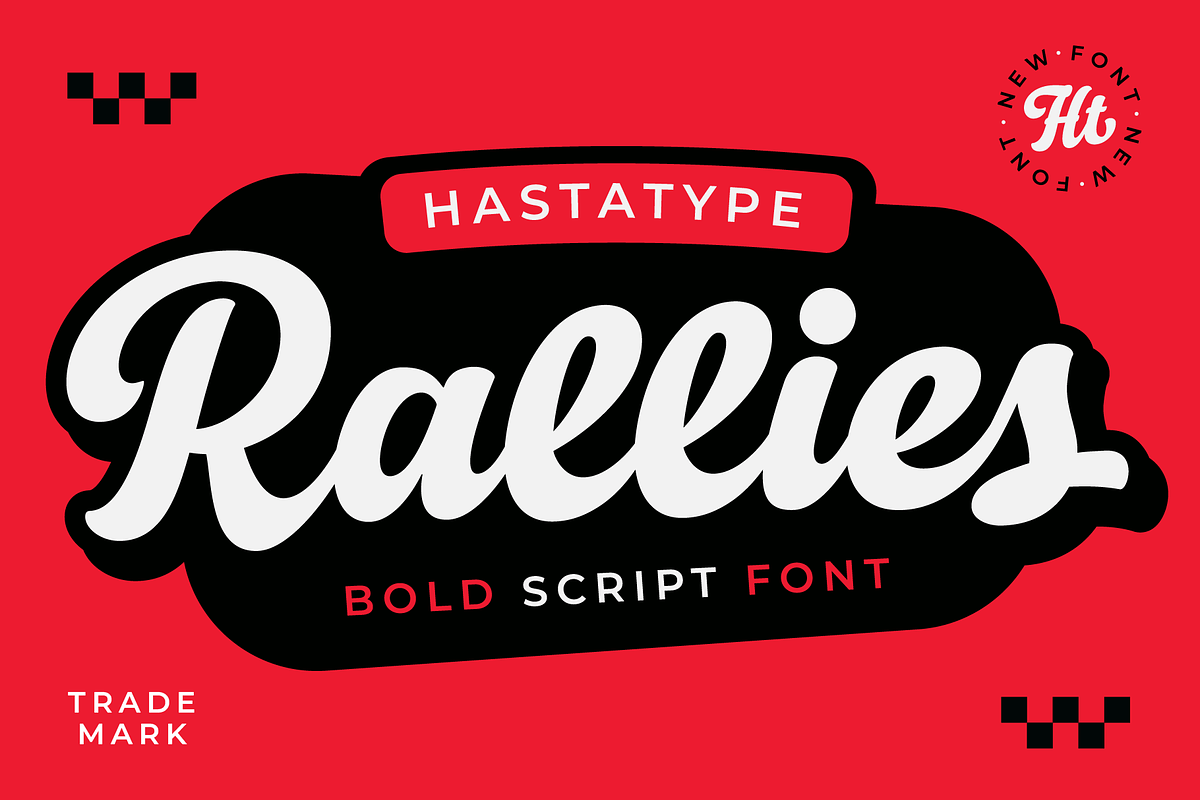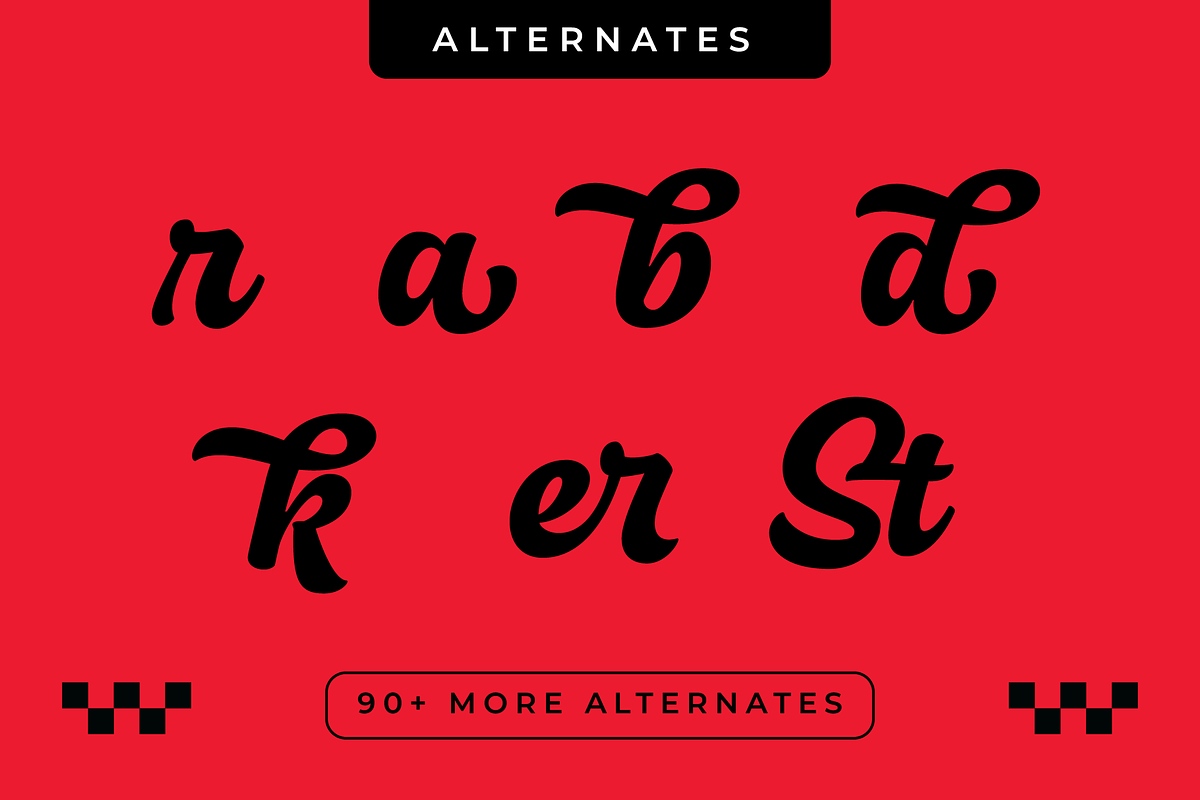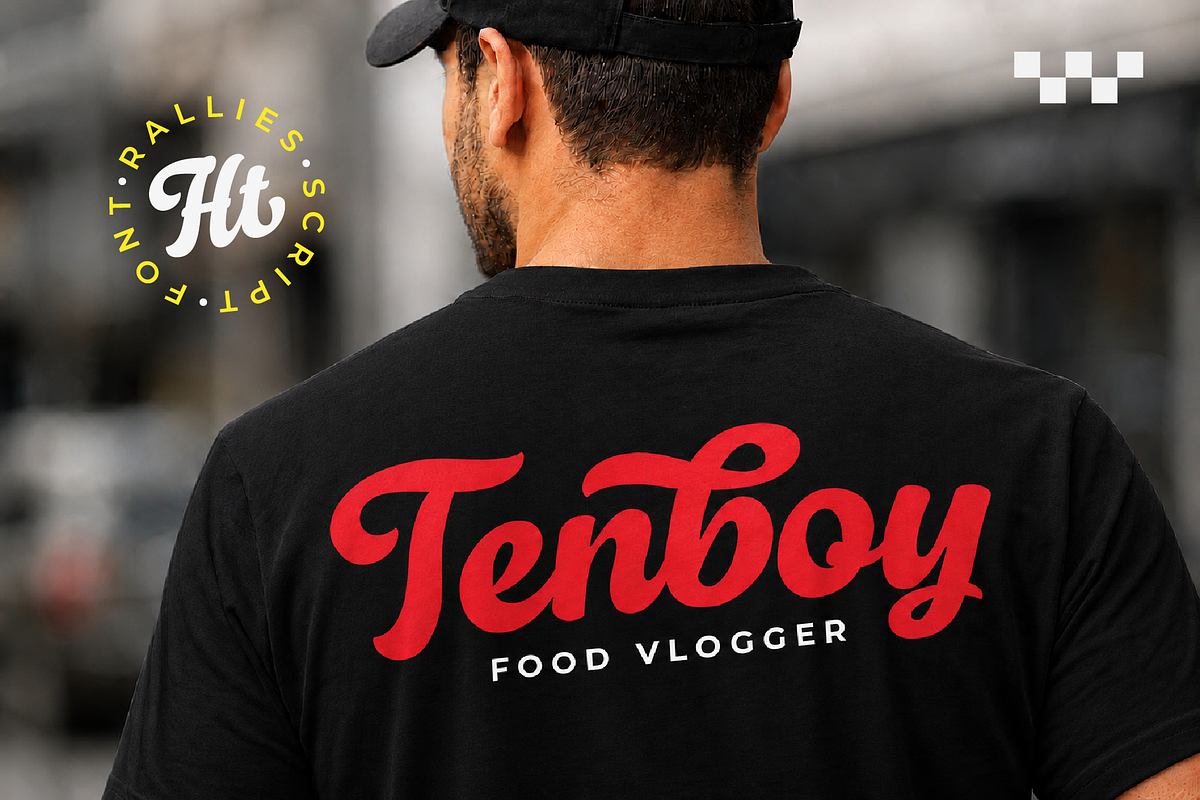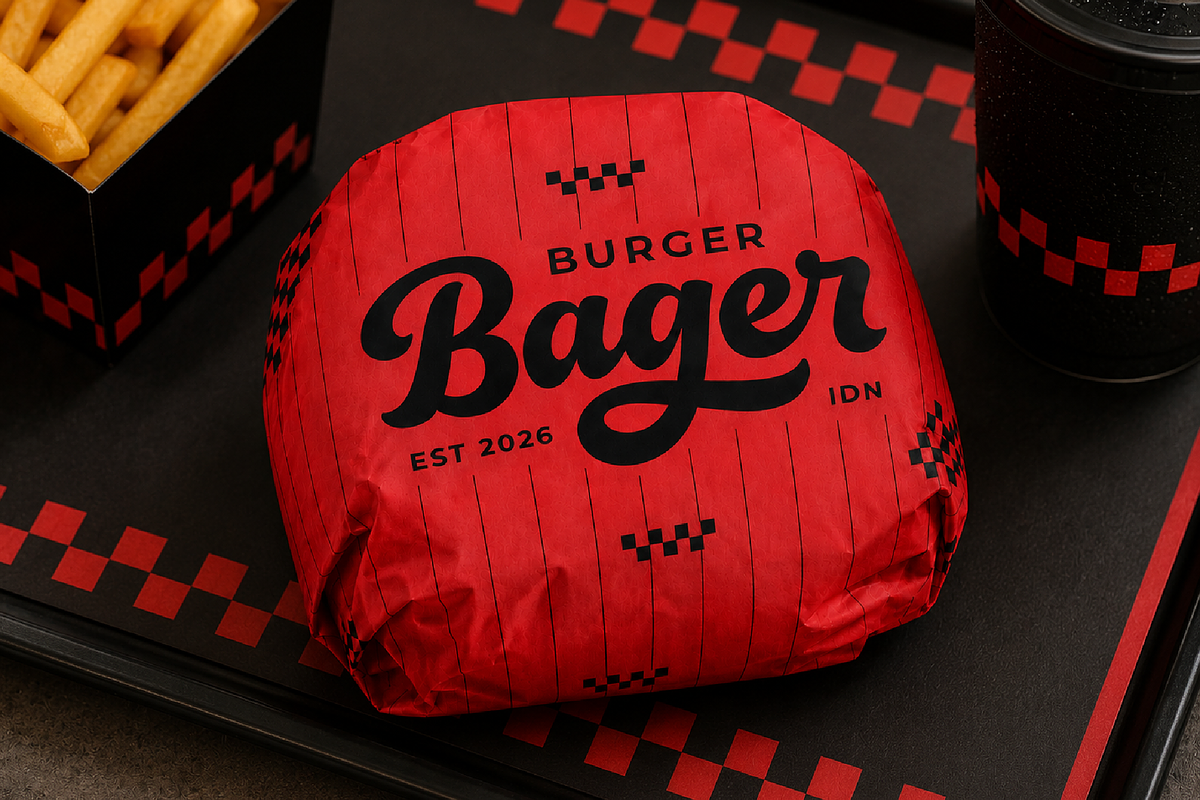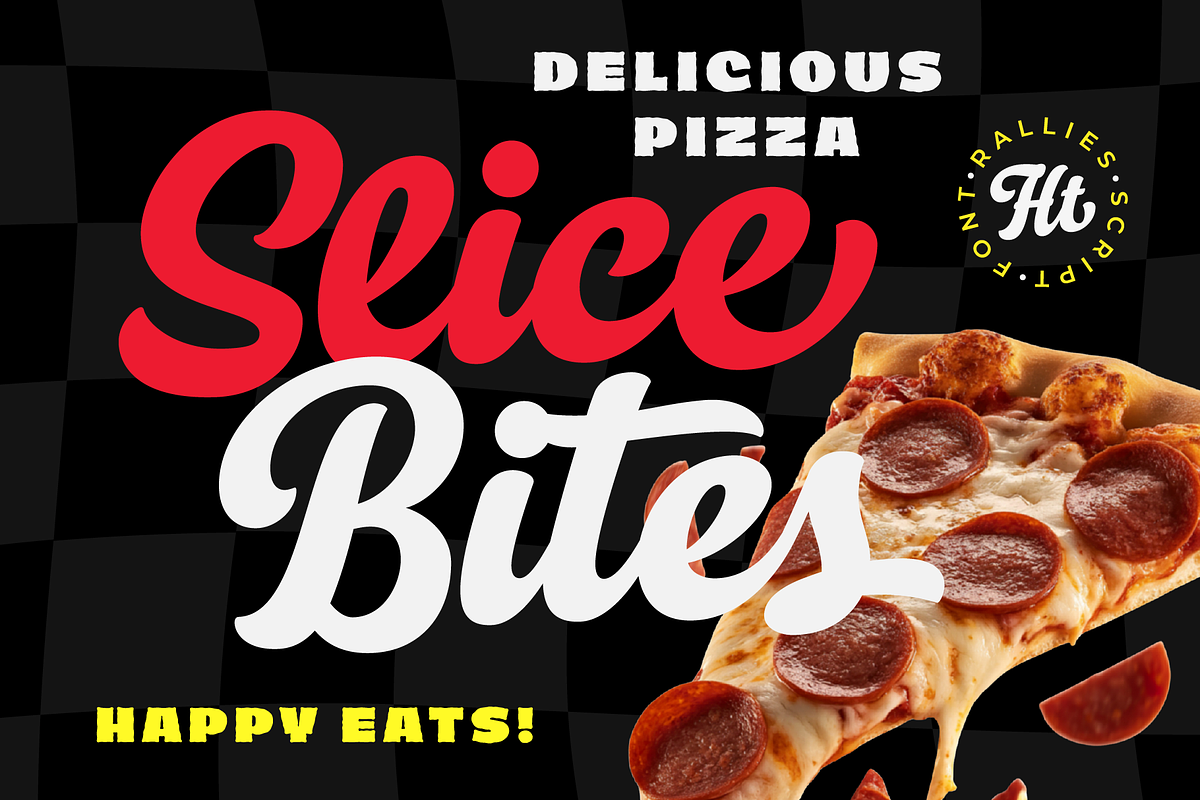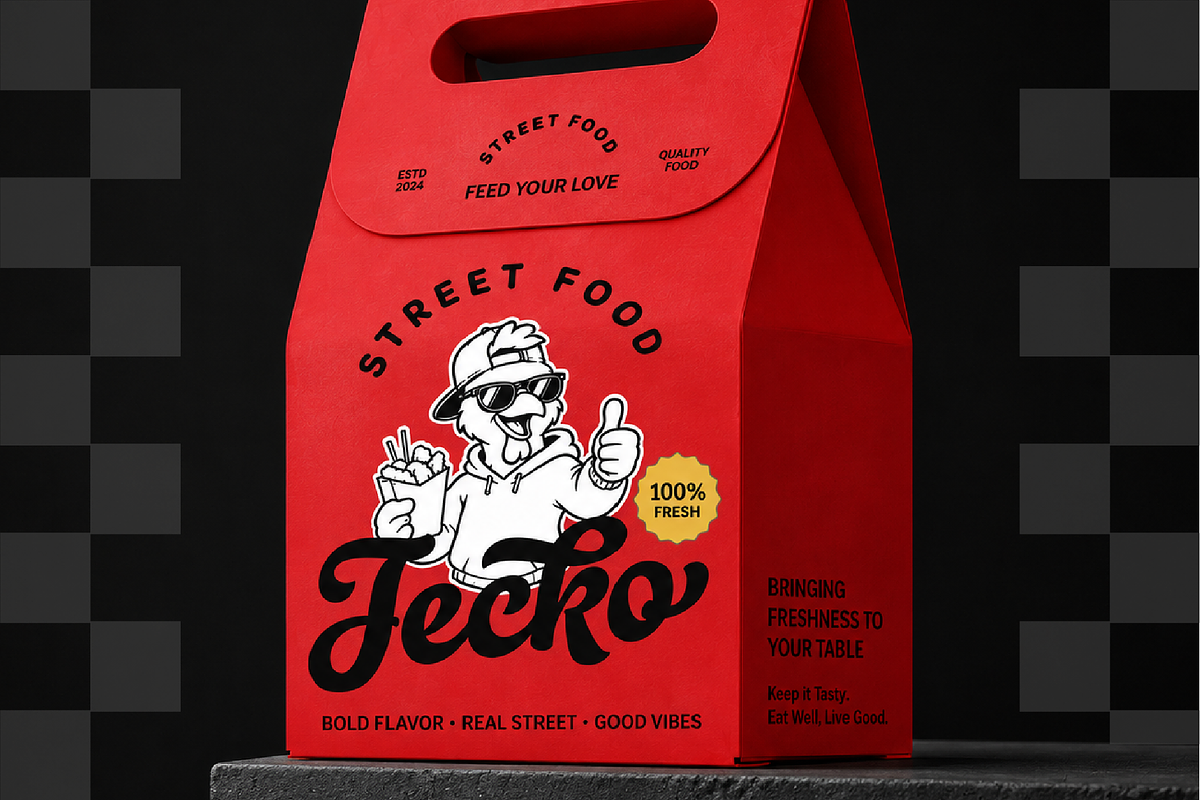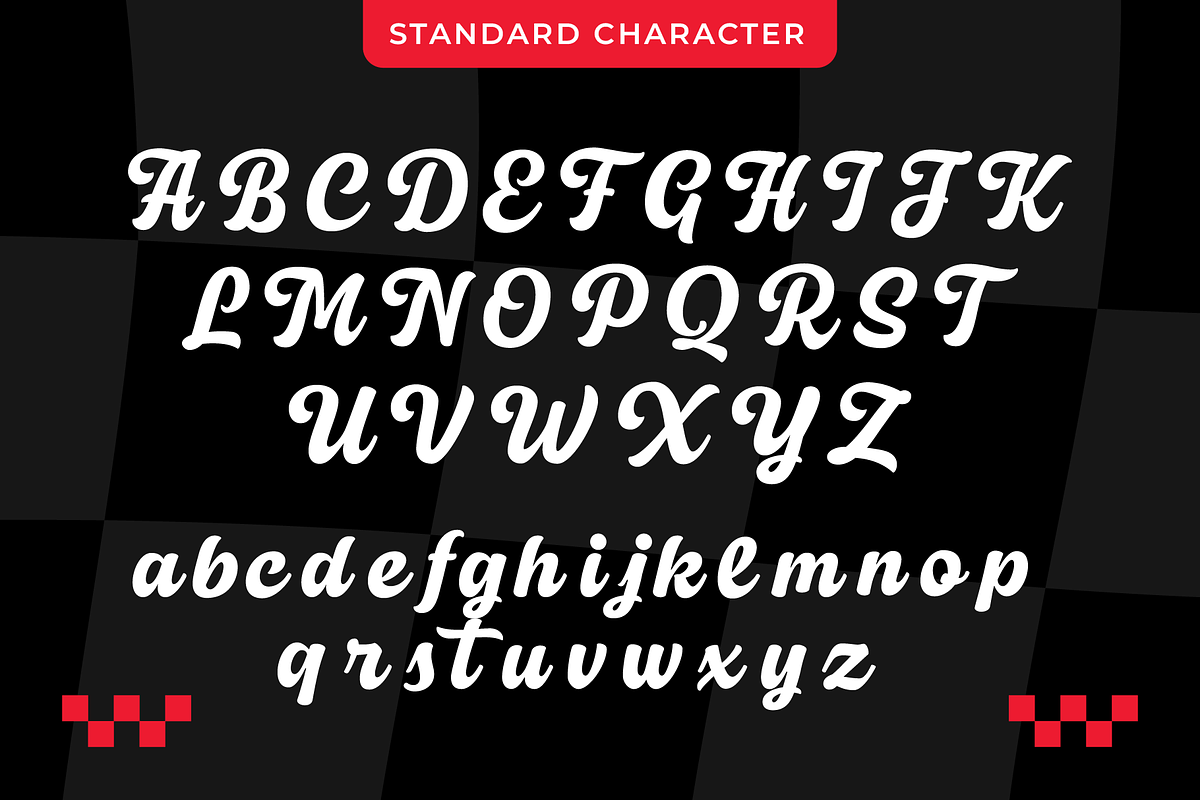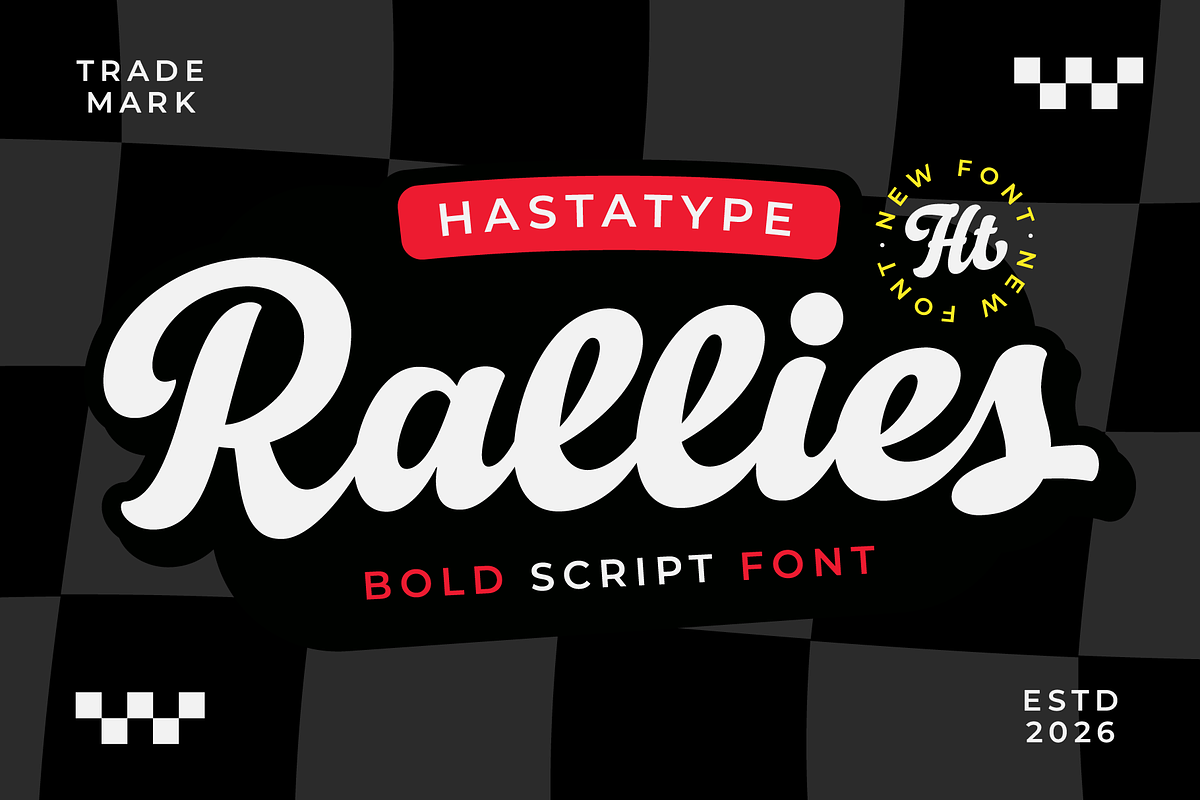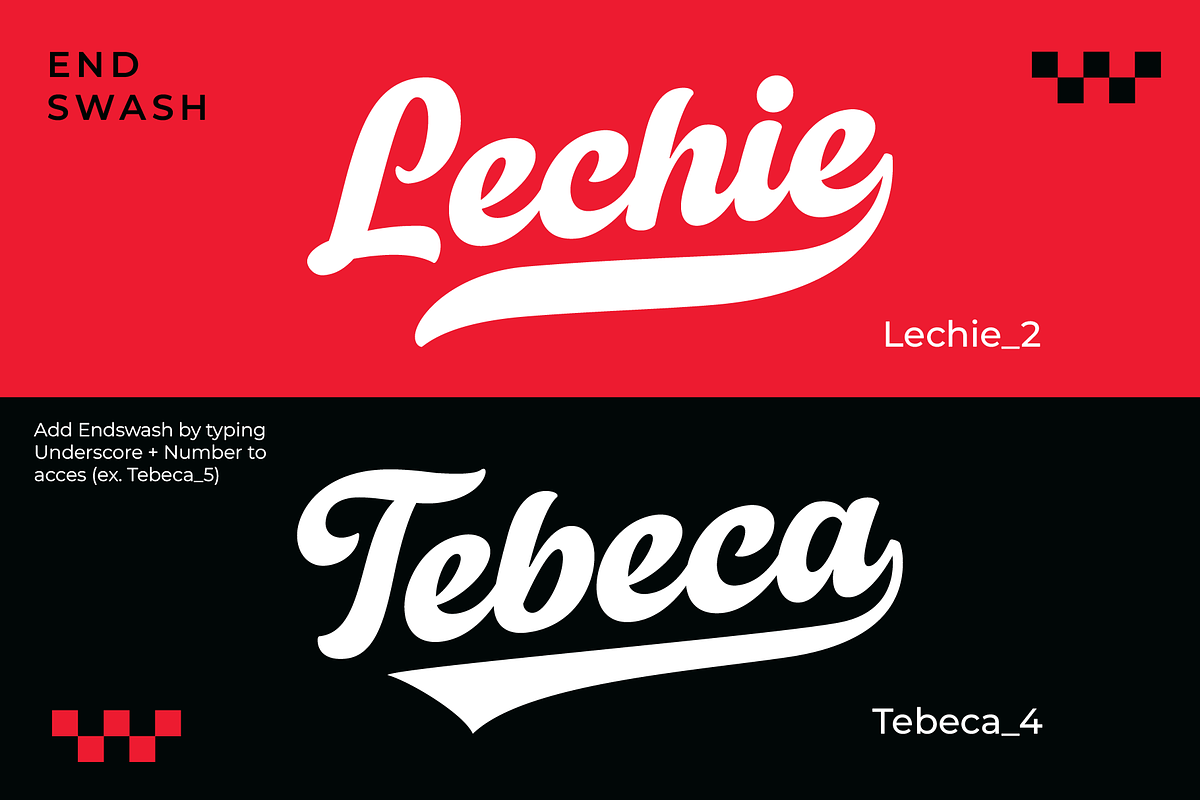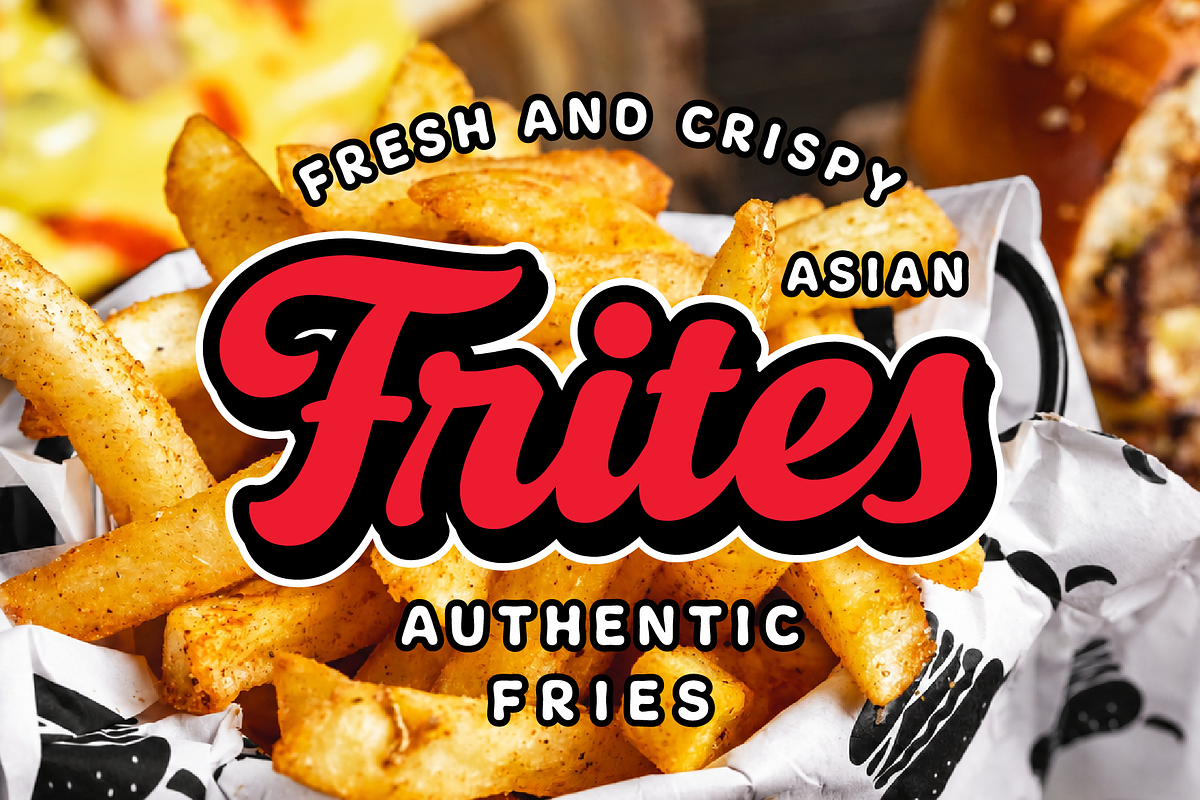
Rallies Bold Script
Rallies – Bold Script Font
Great food deserves great typography—and that's exactly what inspired Rallies.
Inspired by vintage American diners, classic burger joints, and handcrafted sign painting, Rallies is a bold script font that brings warmth, personality, and a nostalgic touch to your designs. Its smooth curves, thick strokes, and confident letterforms make every word feel handcrafted and full of character.
Designed with branding in mind, Rallies is perfect for creating logos that stand out, eye-catching packaging, restaurant menus, apparel graphics, and social media content. It also works beautifully for cafés, food trucks, pizza shops, street food brands, and any project that needs a friendly retro vibe.
To help you create unique lettering, Rallies includes more than 90 alternate characters, along with Stylistic Sets, Discretionary Ligatures, and Ending Swashes. These OpenType features make it easy to customize words and create natural-looking typography without extra effort.
Uppercase & Lowercase letters
90+ Alternate Characters
Stylistic Sets
Discretionary Ligatures
Ending Swashes
Restaurant Logos
Burger & Pizza Branding
Street Food Businesses
Café & Coffee Shop Identity
Food Packaging
Menus
Product Labels
Posters & Signage
T-Shirt Designs
Stickers
YouTube Thumbnails
Vintage & Retro Branding
Whether you're launching a new burger shop, designing packaging for a street food brand, or creating bold retro-inspired merchandise, Rallies gives your work an authentic handcrafted look that's easy to read and impossible to ignore.